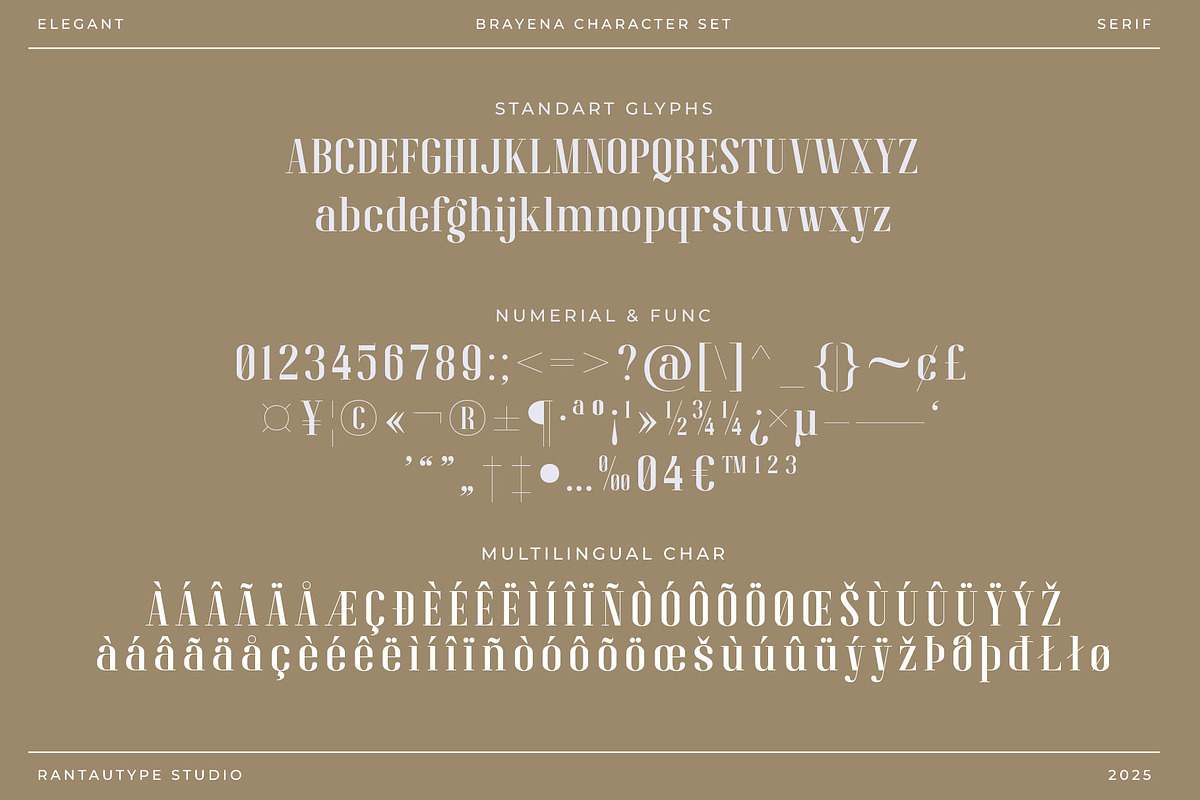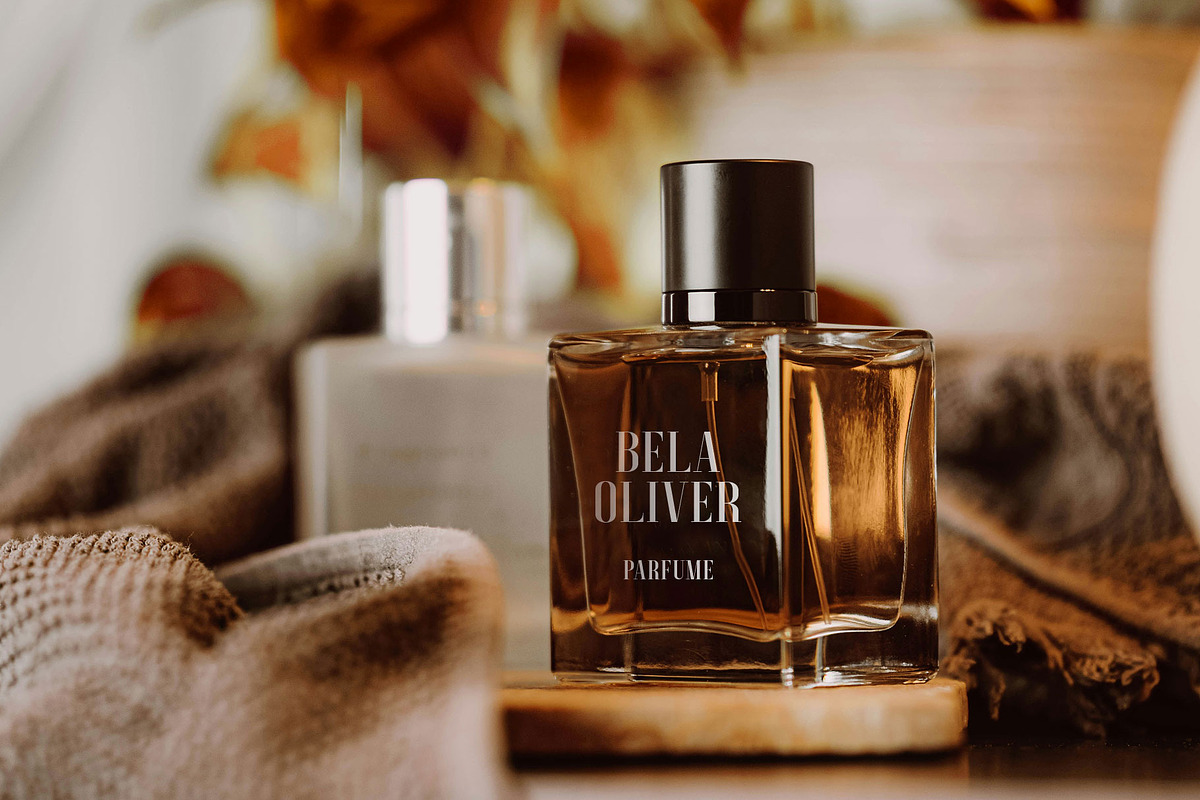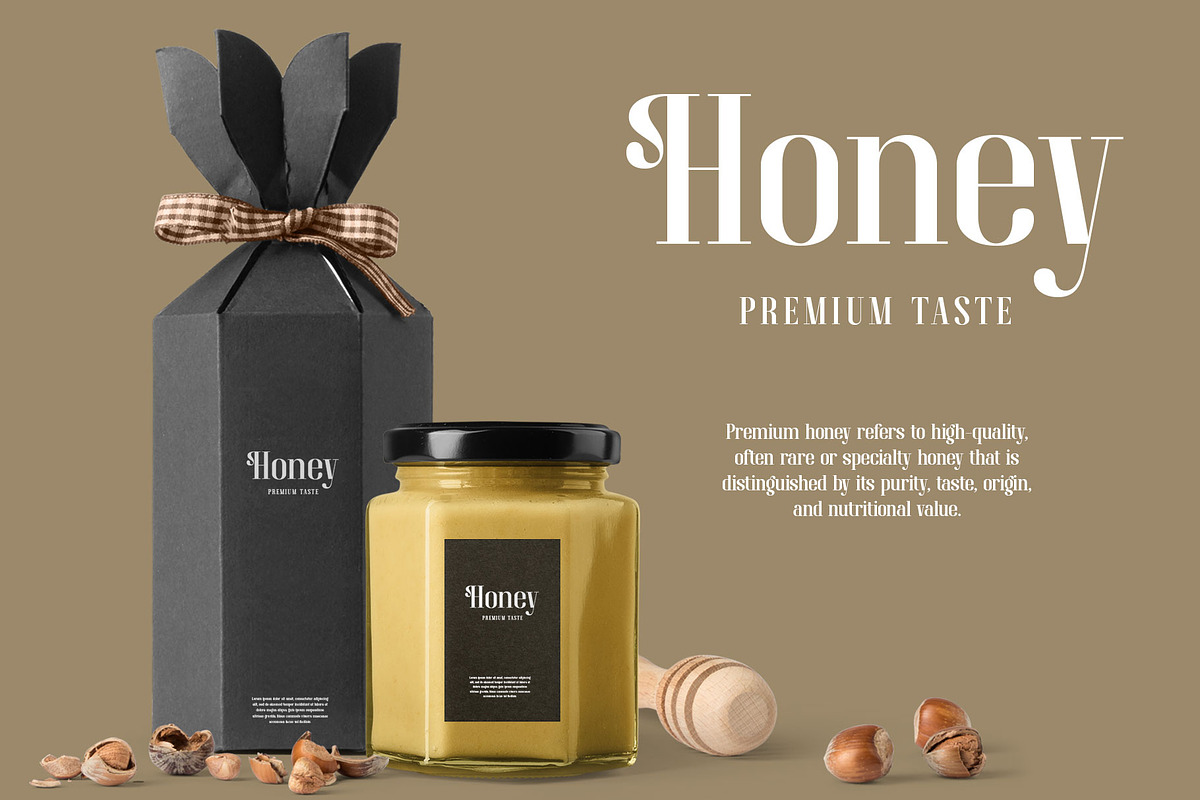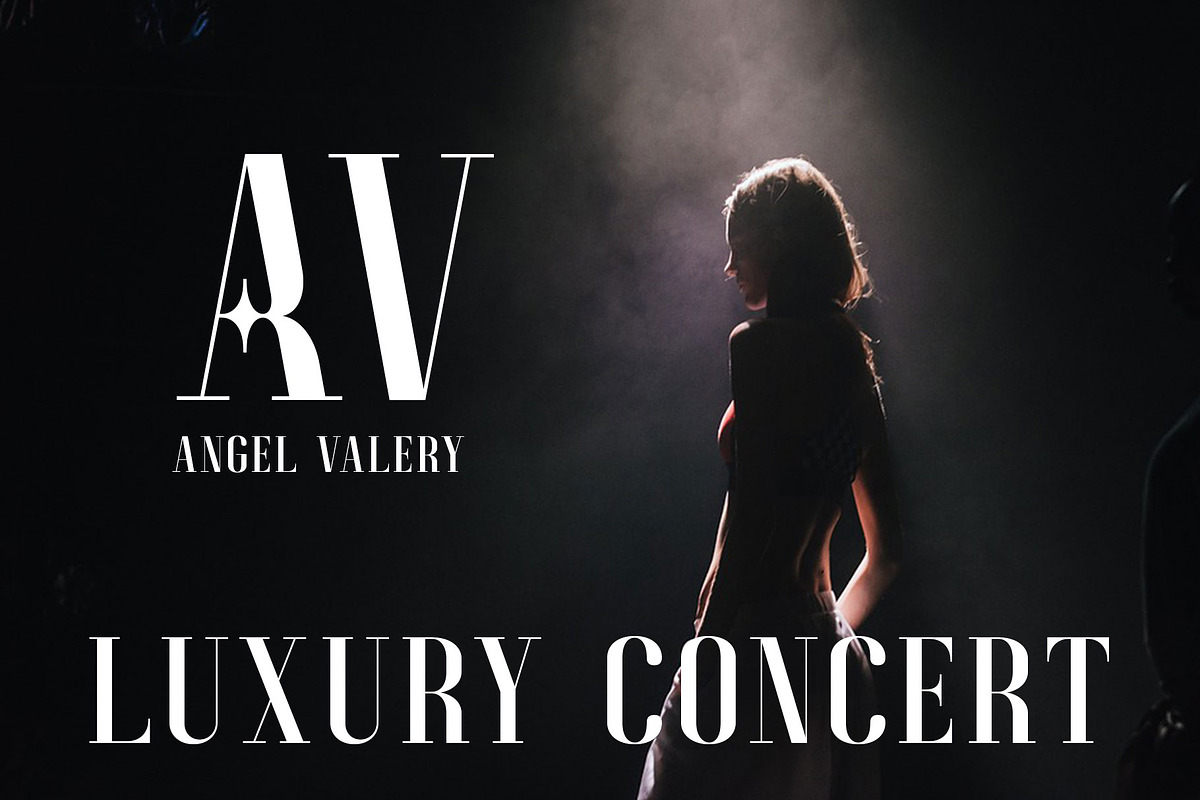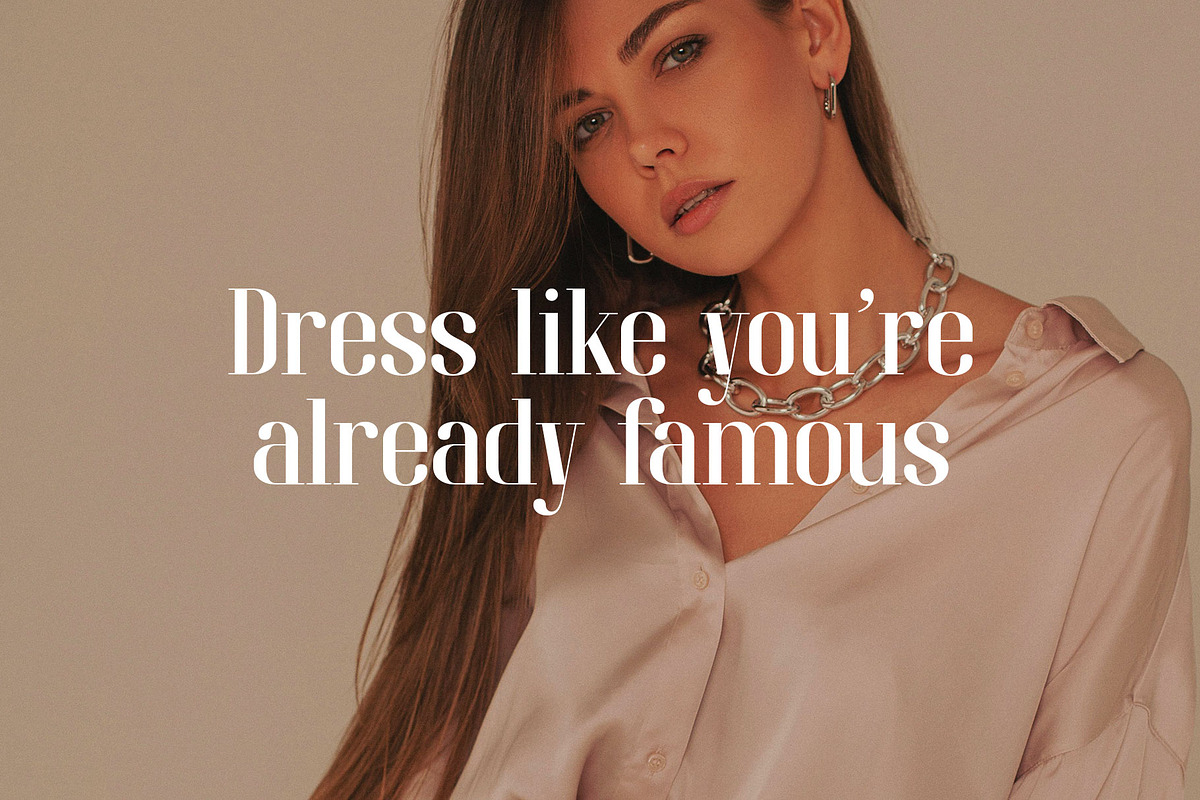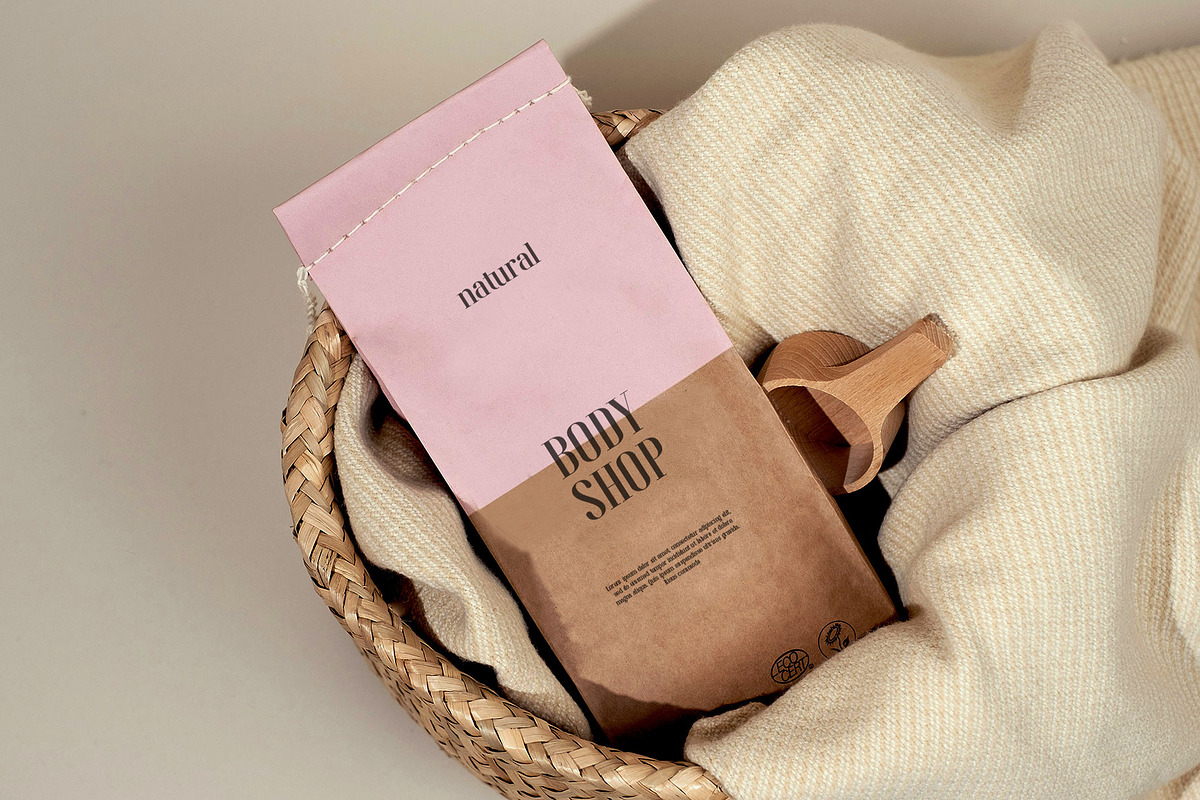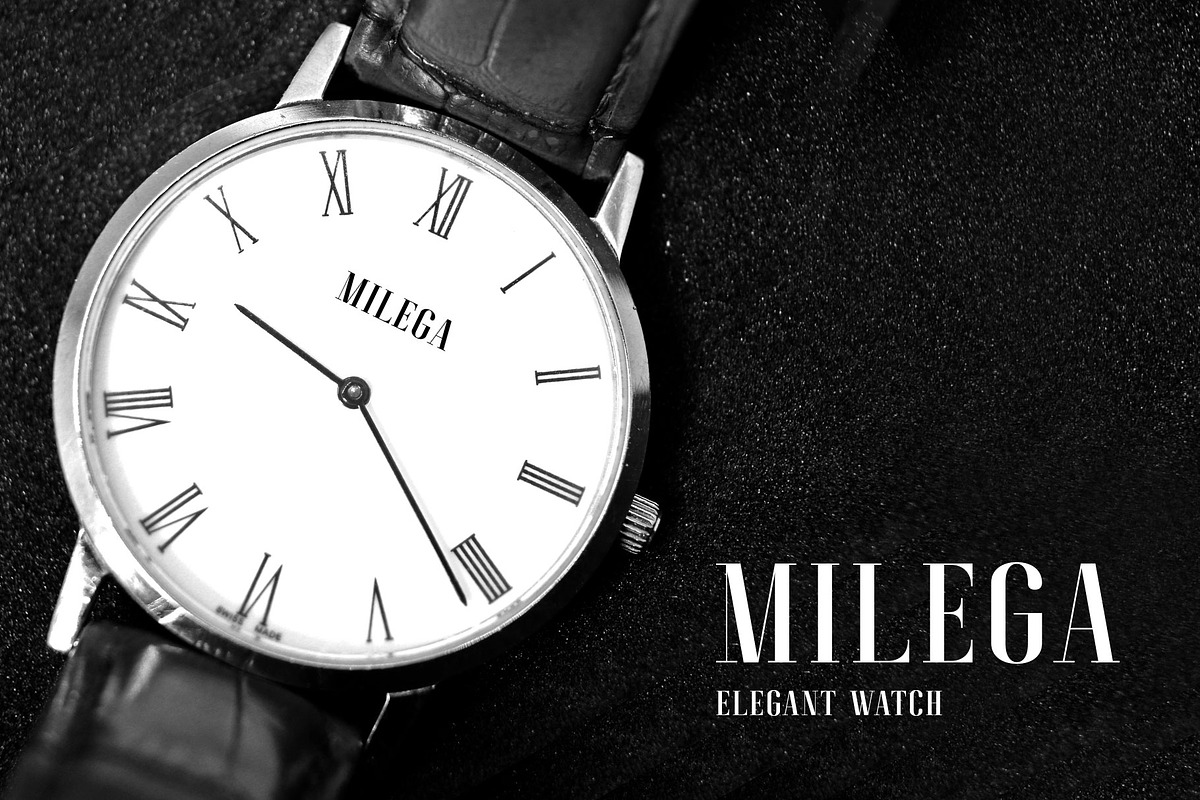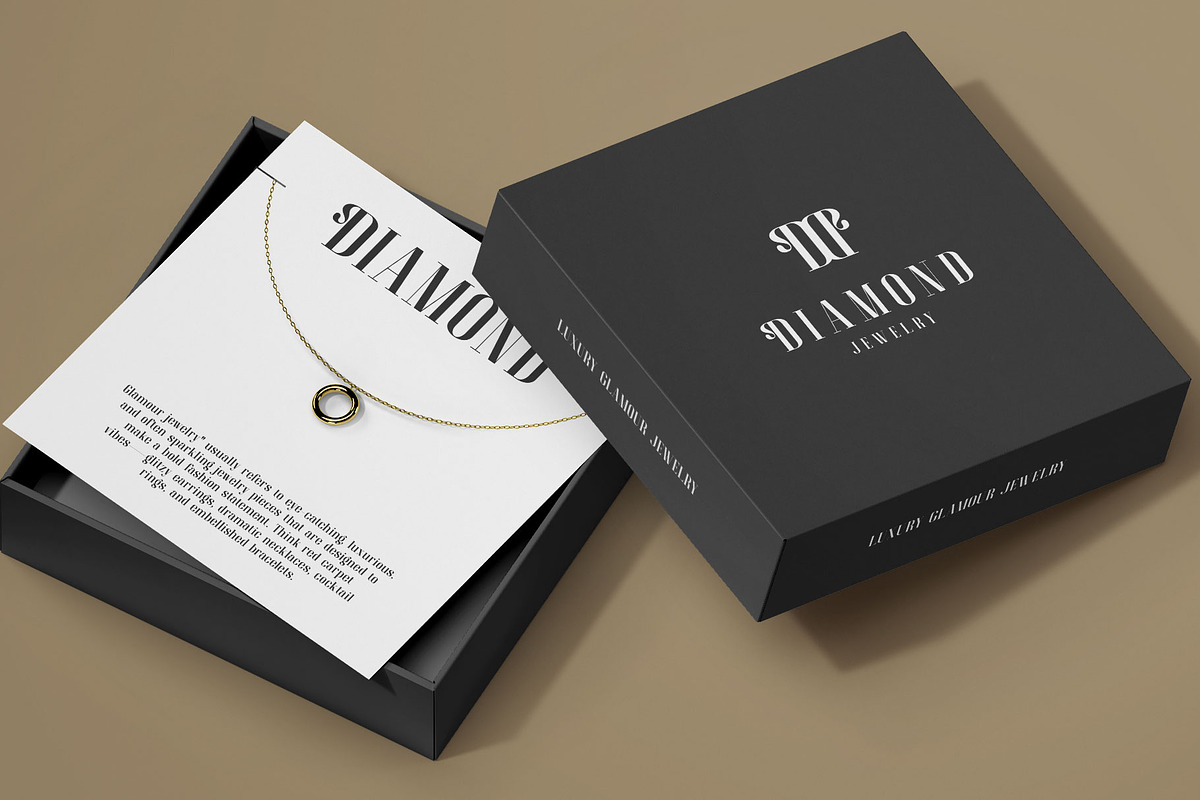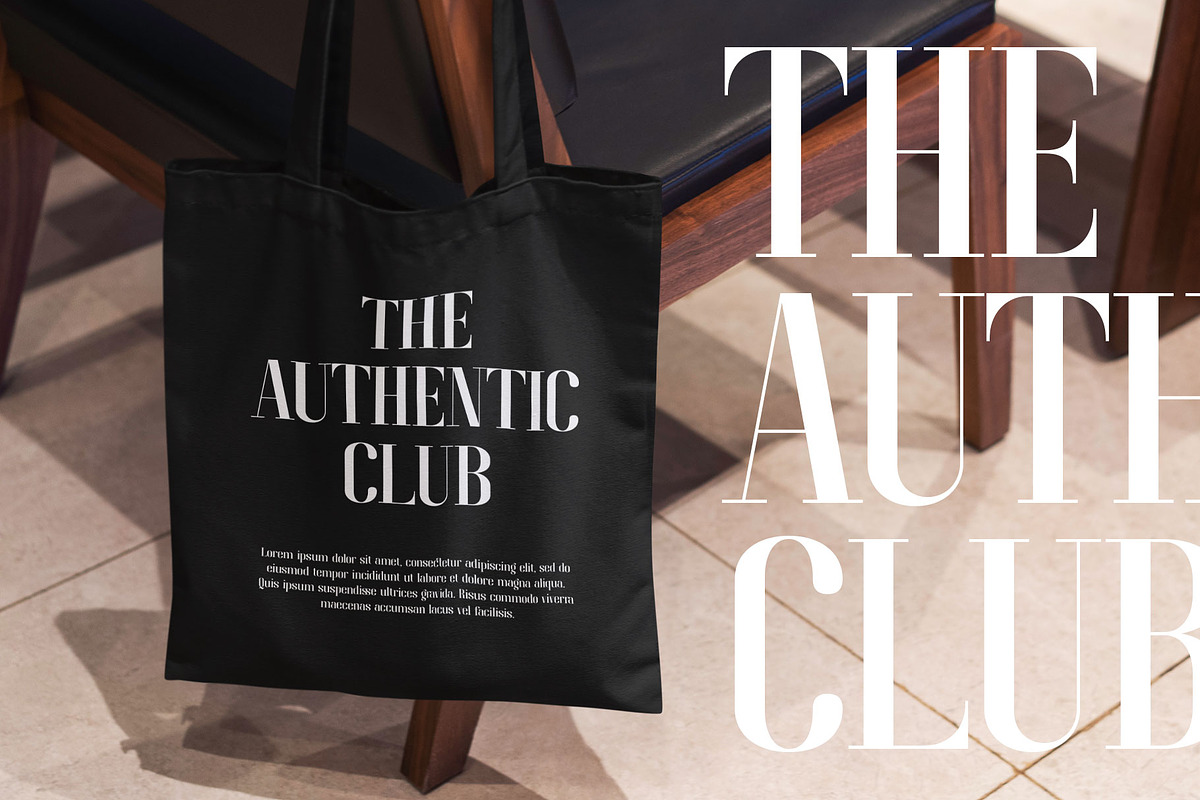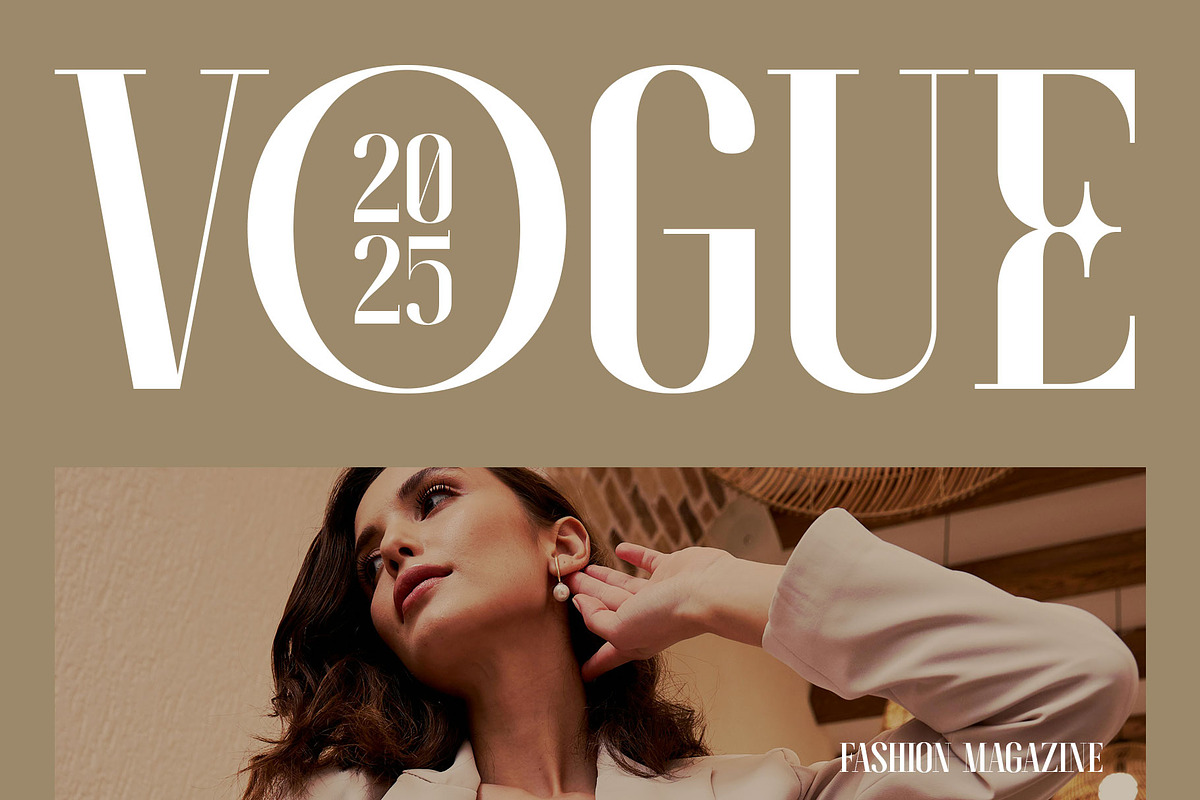
Brayena Elegant Serif Font
Brayena is elegant serif with delicate curves, high contrast strokes, and refined serifs, this font captures the soul of classic beauty. Each letterform is sculpted with intention—soft yet sophisticated, confident yet romantic.
Brayena is a perfectly choice for any creative endeavor, chic, lifestyle design such as logotype, advertisements, watermark on photography, stationery, branding project, display and magazine, invitation, corporate brand, product design, label, business project and many other project with modern touch.
- Standart Glyphs
- Alternate and ligature
Fonts include Multilingual Character for: Afrikaans, Albanian, Asu, Basque, Bemba, Bena, Breton, Chiga, Cornish, Dutch, English, Estonian, Filipino, Finnish, Friulian, Galician, Gusii, Indonesian, Irish, Italian, Kabuverdianu, Kalenjin, Kinyarwanda, Luo, Luxembourgish, Luyia, Machame, North, Oromo, Portuguese, Quechua, Romansh, Rombo, Rundi, Rwa, Samburu, Sango, Sangu, Scottish, Gaelic, Sena, Shambala, Shona, Soga, Somali, Spanish, Swahili, Swedish, Swiss, German.